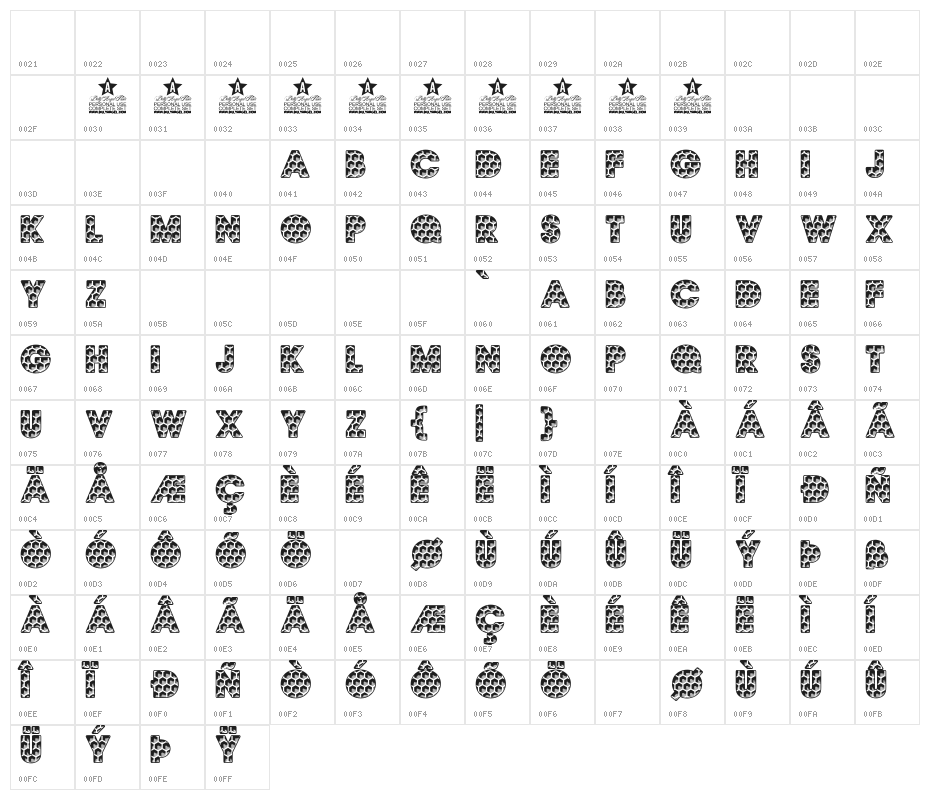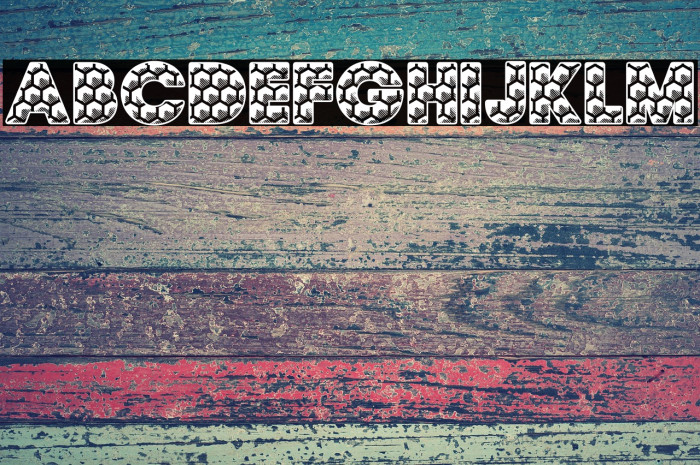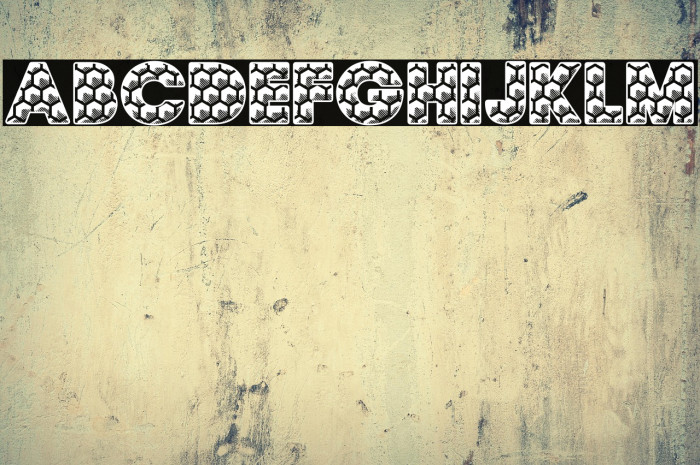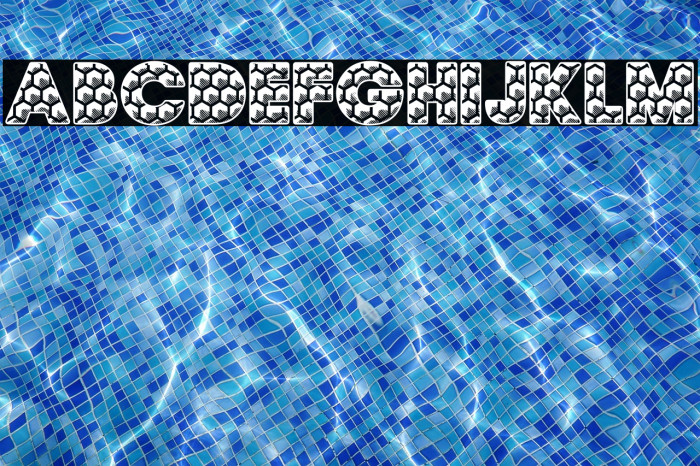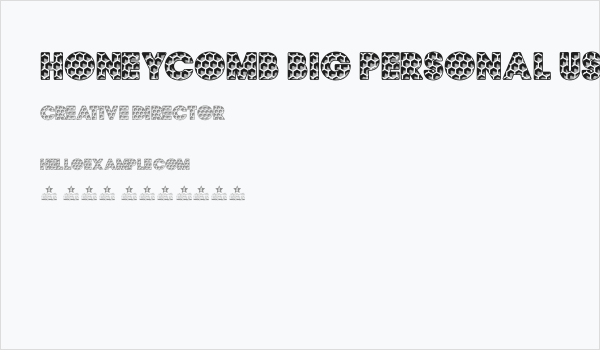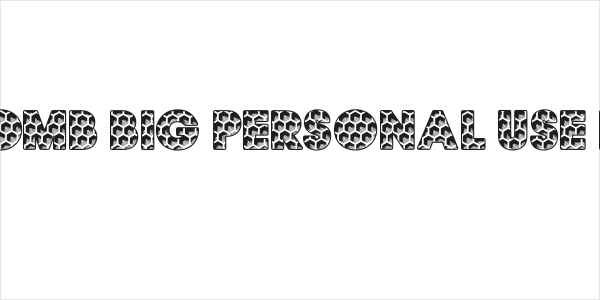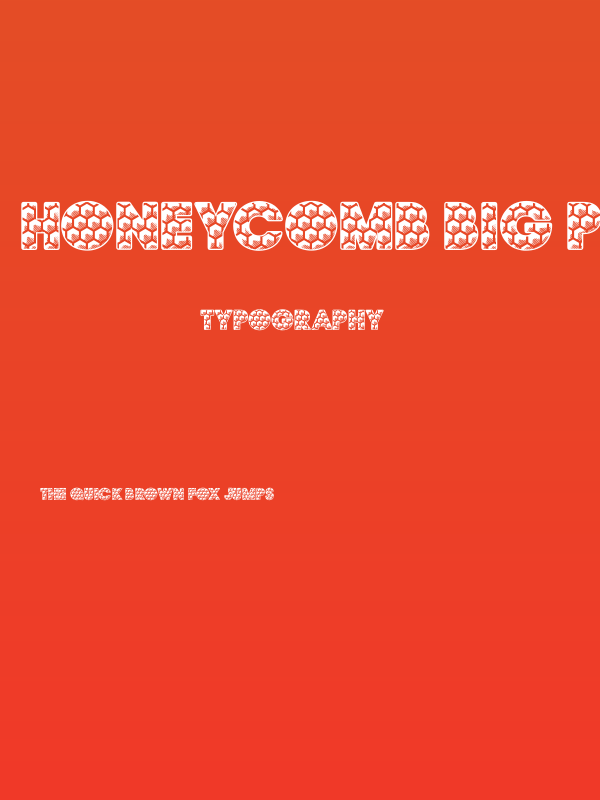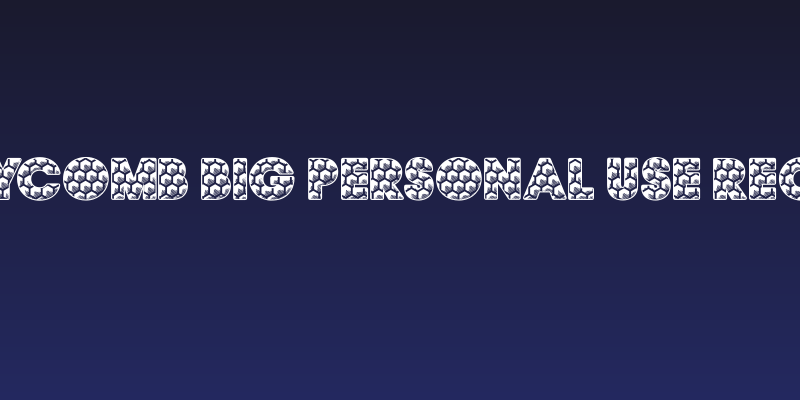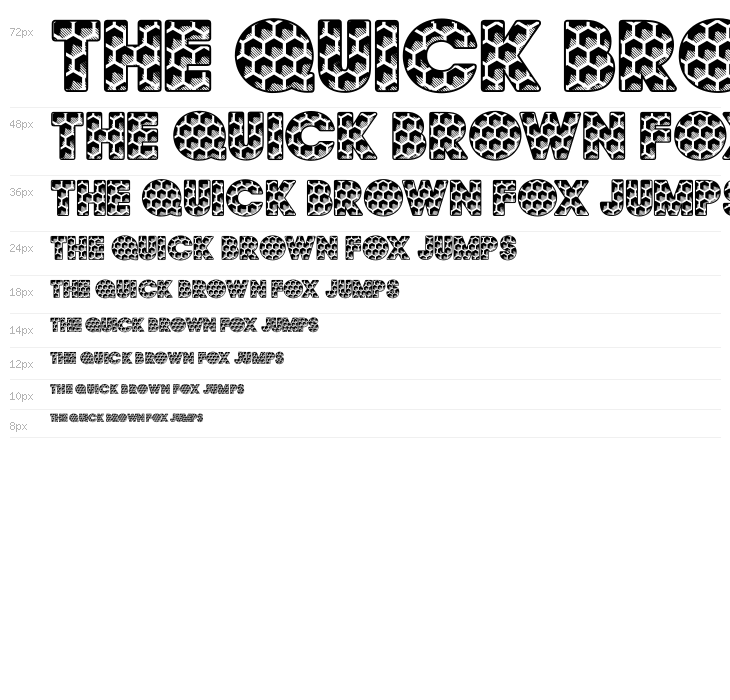
HONEYCOMB BIG PERSONAL USE Regular Font
HONEYCOMB BIG PERSONAL USE Regular Description
This font features a bold and decorative style with a unique honeycomb pattern filling each letter. The uppercase letters are designed with a thick outline, creating a striking visual impact. The intricate honeycomb design within each character adds a layer of texture and complexity, making it ideal for eye-catching displays. The font maintains a consistent weight throughout, ensuring readability despite its decorative elements. The geometric pattern is reminiscent of natural structures, providing an organic yet modern feel. This font is perfect for projects that require a bold statement with a touch of creativity.
| Proposed Projects | This font is suitable for branding, posters, headlines, and any project that requires a bold and creative touch. |